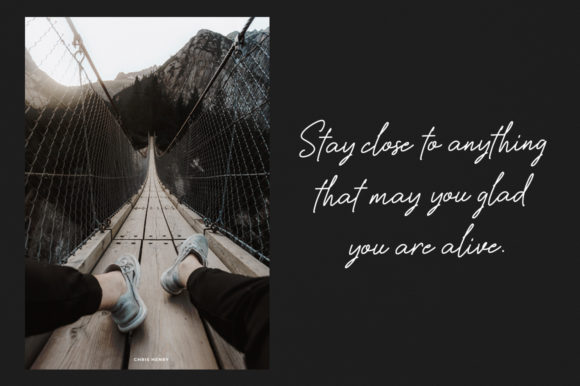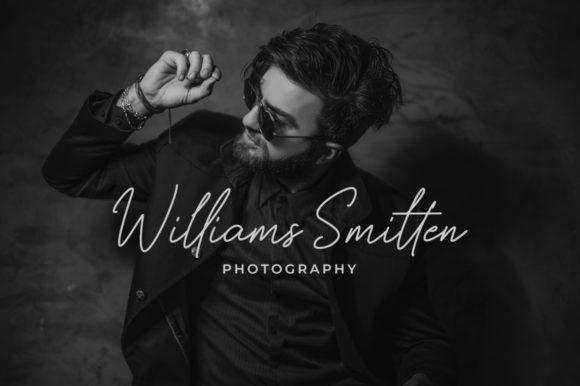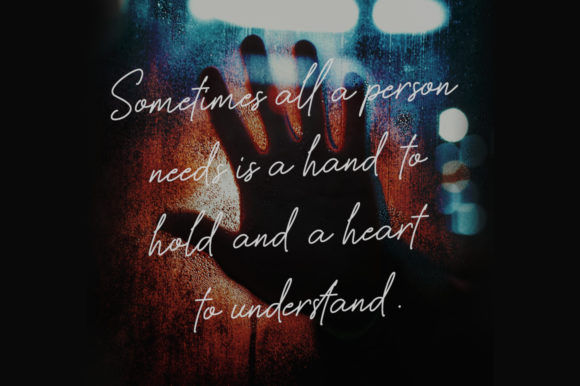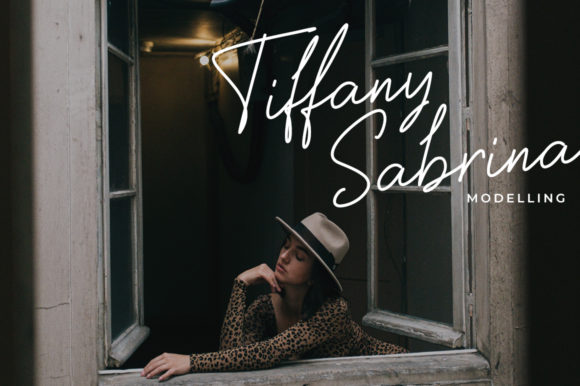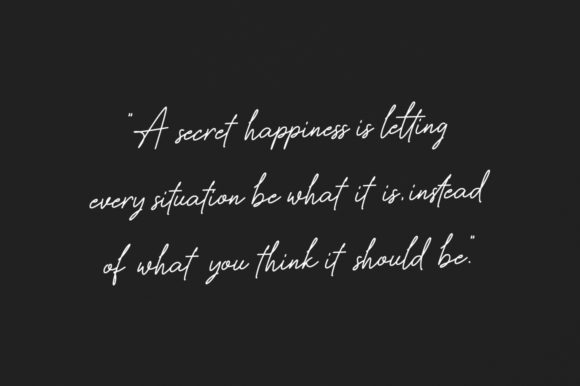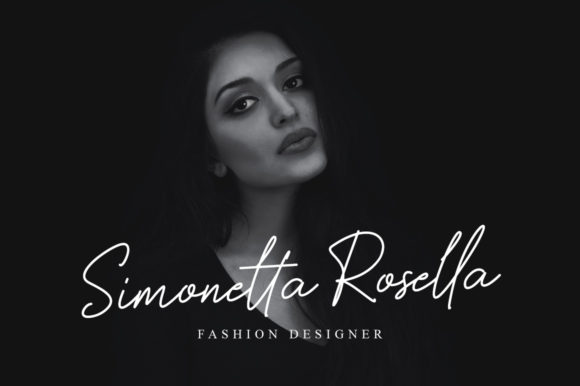
Introduction to Silver City Font
As a designer, have you ever found yourself staring at a blank page, struggling to find the perfect font to bring your creative project to life? That was me last week, working on a wedding invitation design for a close friend’s big day. I wanted something soft, yet elegant, and that’s when I stumbled upon the Silver City Font – a sweet, hand-lettered handwritten font that instantly caught my eye.
With its authentic feel and versatility, the Silver City Font is a game-changer for designers. Whether you’re working on a high-quality design project or just want to add a touch of personality to your social media posts, this font is sure to impress. Plus, with a transparent background option and free download available, it’s a valuable resource for any design enthusiast.
Get ready to fall in love with the Silver City Font and discover its endless possibilities for your next creative project.
Key Features of Silver City Font
- High-quality design: The Silver City Font is a premium design resource ideal for creative projects that require a touch of elegance and sophistication.
- Unique characteristics: The Silver City Font features a unique blend of modern and vintage elements, making it a standout choice for designers looking to add some personality to their work.
- Perfect for creative projects: The font is ideal for use in branding, advertising, and editorial design, as well as for personal creative projects and design experiments.
Honest Review: Silver City Font
As a designer, I’m always on the lookout for high-quality design resources to elevate my creative projects. Recently, I had the opportunity to try out the Silver City Font, and I’m excited to share my honest review with you.
- Unique and stylish aesthetic: The Silver City Font has a distinct, modern feel that adds a touch of sophistication to any design.
- High-quality design: The font is well-crafted, with crisp lines and smooth curves that make it perfect for digital and print projects.
- Limited customization options: While the font is high-quality, it’s a bit limited in terms of customization options, which may not be ideal for designers who like to experiment with different styles.
- May not be suitable for all design projects: The font’s unique aesthetic may not be suitable for every design project, particularly those that require a more traditional or formal look.
Overall, I’m impressed with the Silver City Font, and I think it’s a great addition to any designer’s toolkit. With its unique style and high-quality design, it’s perfect for designers who want to add a touch of modernity to their creative projects. Just be aware of its limitations, and you’ll be all set to create amazing designs with this font.
The Silver City Font is ideal for use in a variety of creative projects, including logos, graphics, and presentations. Its high-quality typography and transparent background make it perfect for use in designs where a clean and modern aesthetic is desired.